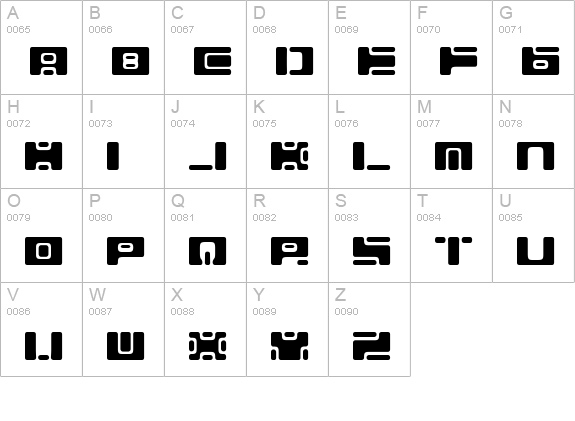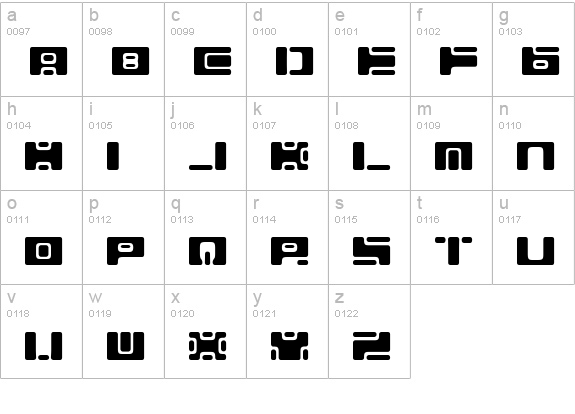
Sin Nombre font is a mesmerizing typeface that exudes elegance and sophistication. Its unique design features a perfect balance between sharp edges and smooth curves, making it an ideal choice for various creative projects. This font's versatility allows it to effortlessly adapt to any design concept, whether it be for modern branding, editorial layouts, or artistic posters. What sets Sin Nombre font apart from other typefaces is not only its visually stunning appearance but also its availability for free. That's right, this exceptional font can be freely downloaded at FontsMarket.com. This generous offer allows designers, artists, and enthusiasts from all walks of life to access this remarkable font and elevate their projects to new heights. Sin Nombre font boasts a wide range of weights and styles, providing endless possibilities for customization. From the bold and impactful heavy weight to the delicate and refined light weight, each variation offers its own unique personality, ensuring that your designs will truly stand out. Additionally, the font's extensive character set includes special glyphs, punctuation marks, and numerals, enabling you to create captivating typography that captures attention and engages the viewer. Whether you're working on a professional project or simply exploring your creative side, Sin Nombre font is the perfect companion. Its seamless legibility and exquisite details make it a joy to work with, while its free availability allows you to experiment and push boundaries without limitations. Download Sin Nombre font from FontsMarket.com today and embark on a typographic journey that will leave a lasting impression.